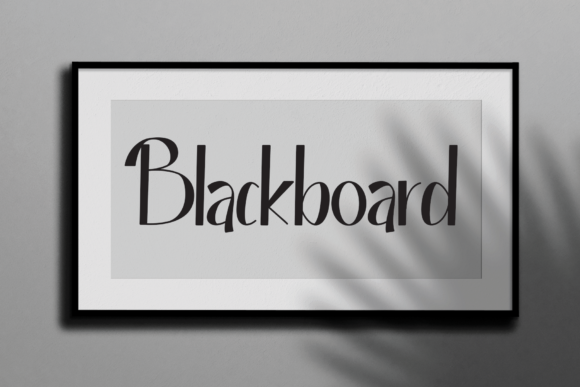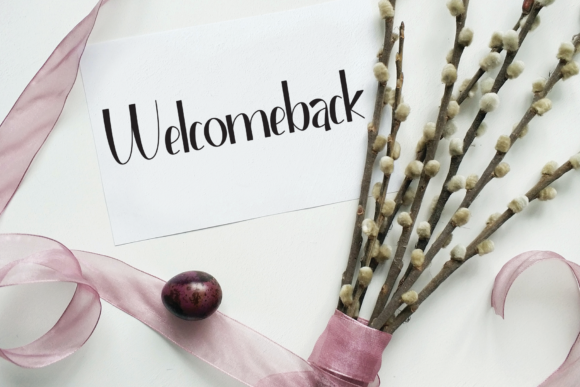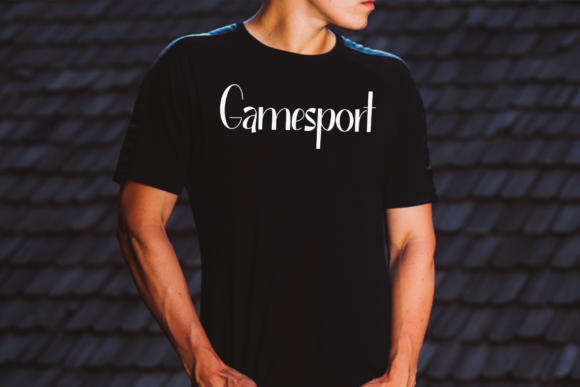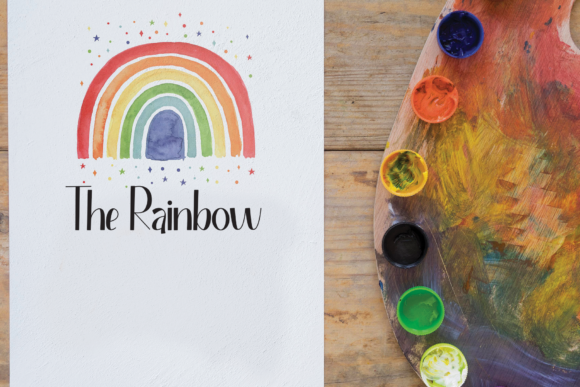
Sagatha Font
About Sagatha Font
“Sagatha” is a captivating and refreshingly modern handwritten font that brings a touch of sweetness and contemporary flair to your design projects. Its unique style and versatility make it a fantastic choice for a wide range of creative endeavors.
With its soft and inviting strokes, “Sagatha” exudes a sense of warmth and friendliness that instantly captures attention. This font is an excellent option for projects that aim to create a lighthearted and approachable atmosphere. Imagine using it to design eye-catching social media graphics that engage your audience and convey a sense of connection.
The modern twist of “Sagatha” allows it to effortlessly adapt to various design ideas, making it an ideal companion for both digital and print projects. Whether you’re working on vibrant posters, playful packaging, or innovative website design, this font’s contemporary charm will enhance the visual appeal and captivate viewers.
Adding “Sagatha” to your branding toolkit can infuse your logo, business cards, and other promotional materials with a fresh and trendy vibe. Its handwritten nature brings a personalized touch that resonates with modern audiences, making your brand more relatable and memorable.
One of the strengths of “Sagatha” lies in its ability to convey a sense of fun and friendliness. Incorporating this font into children’s products, playful invitations, or cheerful greeting cards can instantly elevate the mood and create a joyful atmosphere that resonates with both young and young-at-heart audiences.
The clean and modern lines of “Sagatha” also lend themselves well to minimalist and contemporary design aesthetics. Whether you’re crafting sleek product labels or sleek editorial layouts, this font’s simplicity and elegance will bring a touch of sophistication while maintaining a friendly and approachable feel.
The versatility of “Sagatha” truly shines when paired with bold colors, subtle textures, or vibrant imagery. It can serve as a stylish and eye-catching accent that complements your overall design concept, allowing you to experiment with various visual elements to create dynamic and visually appealing compositions.
Incorporating “Sagatha” into your design projects opens up a world of creative possibilities. Its sweet and modern handwritten style has the power to transform ordinary designs into extraordinary works that resonate with contemporary audiences. Whether you’re aiming for a fun and friendly look or a stylish and minimalist approach, “Sagatha” can help you achieve your design goals and create visually striking and engaging content.